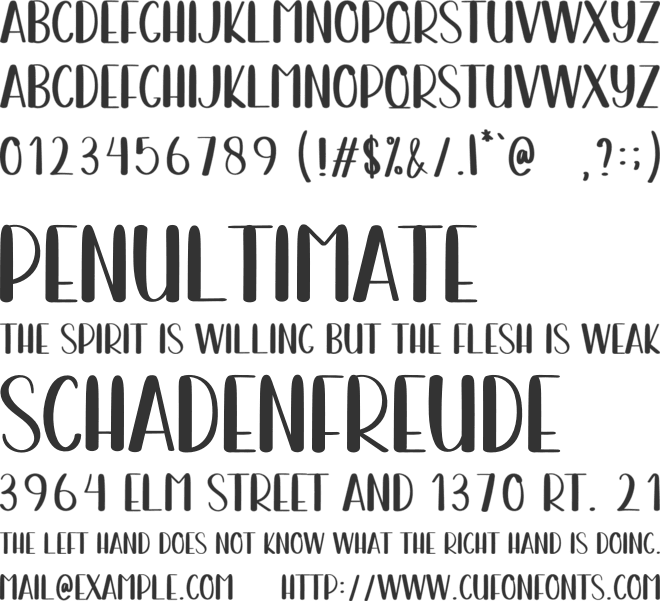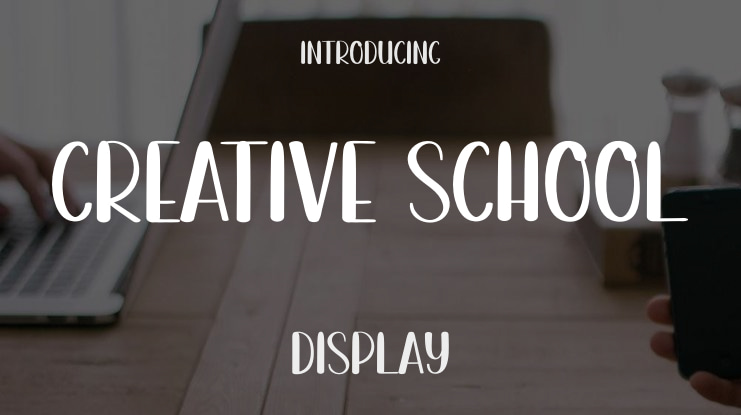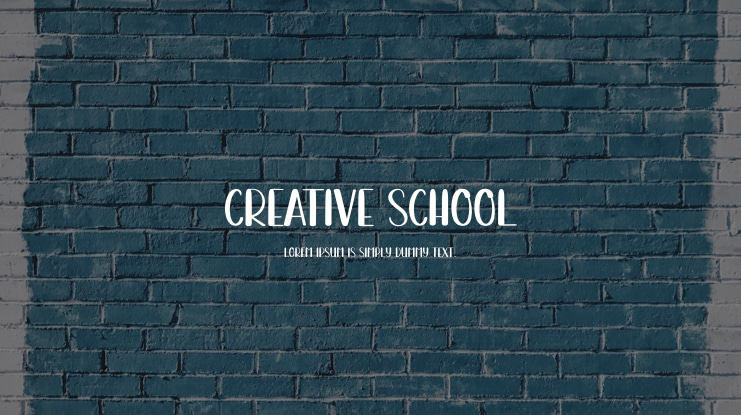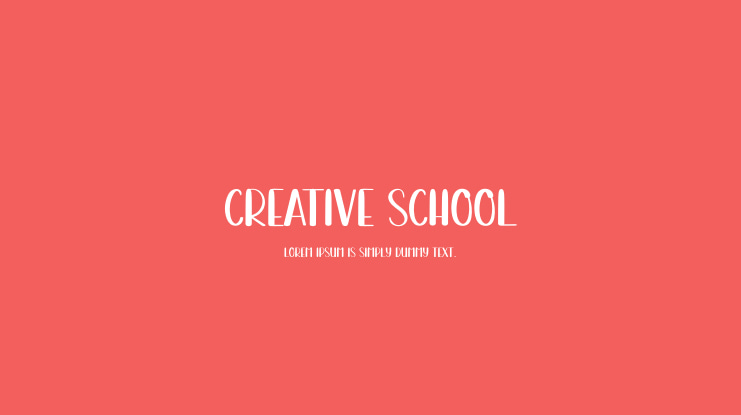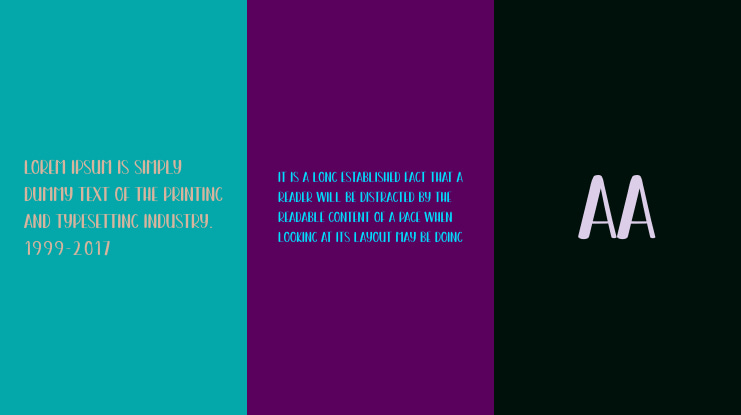
Creative School Font
this is a sweet and friendly handwritten display font. Cute and fun, this font is ideal for writing wedding invitations, cards, or any other design that might need a playful touch!Visit the following website for commercial purchases:https://scratchones.com/or you can contact the following email if you have questions and for custom fonts, adding font glyphs, editing fonts, and others commerciallyGmail :  You